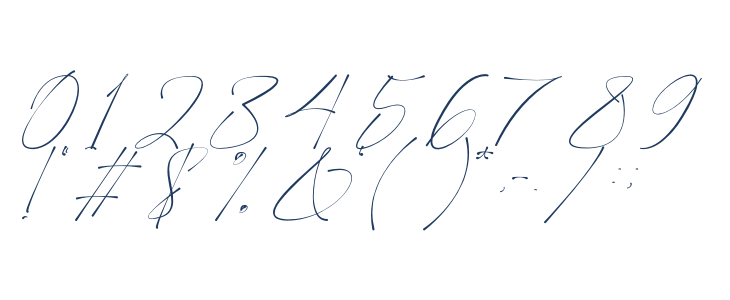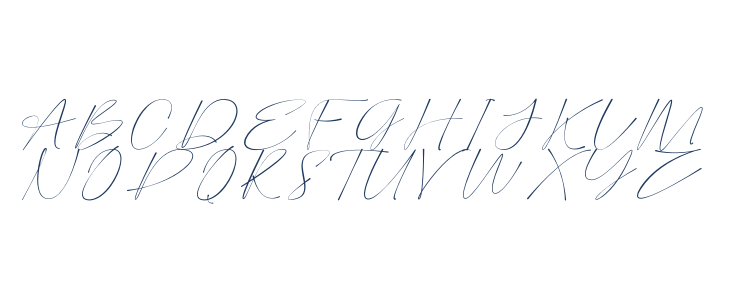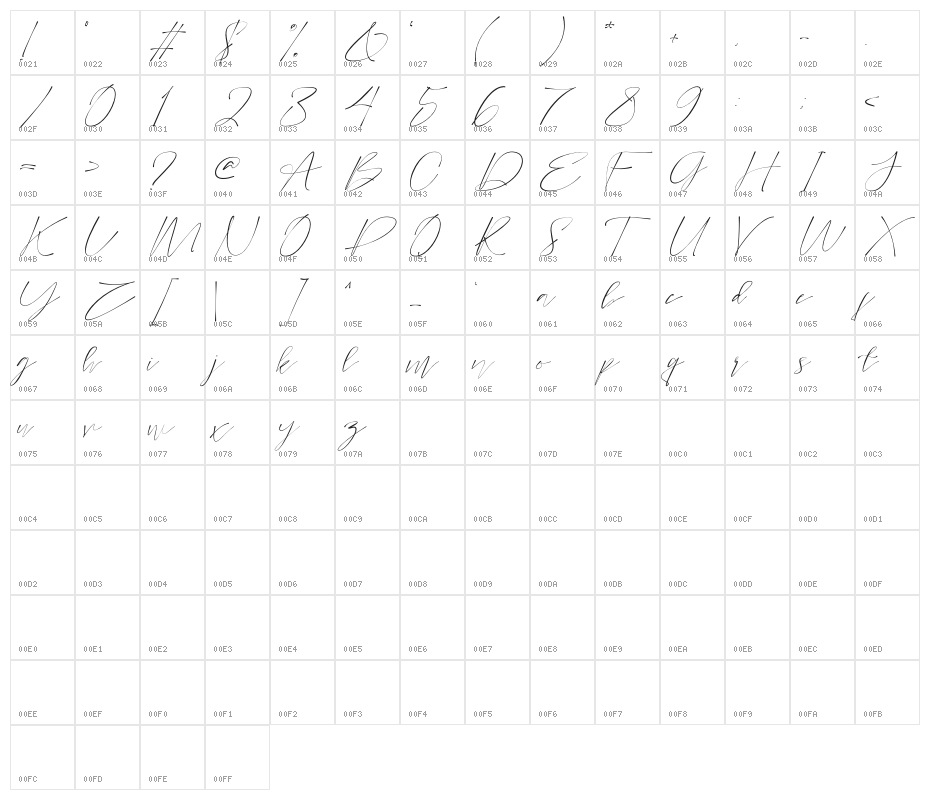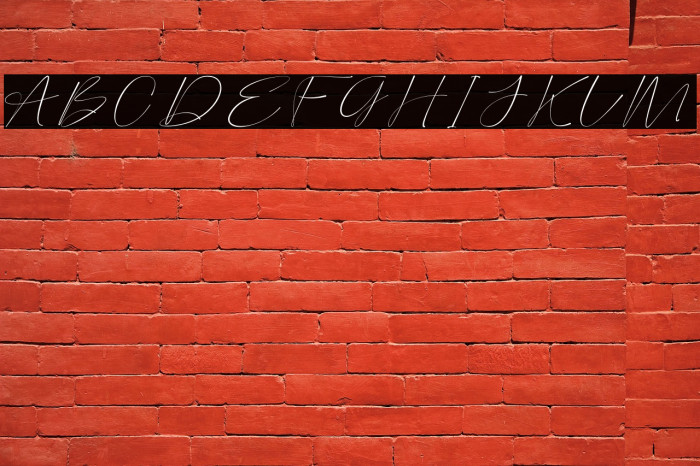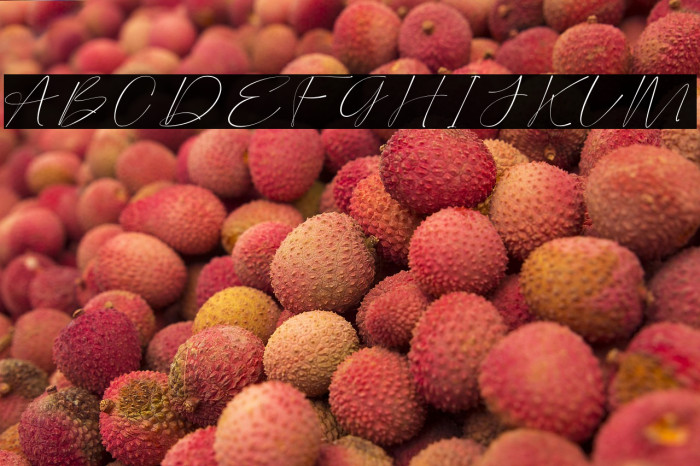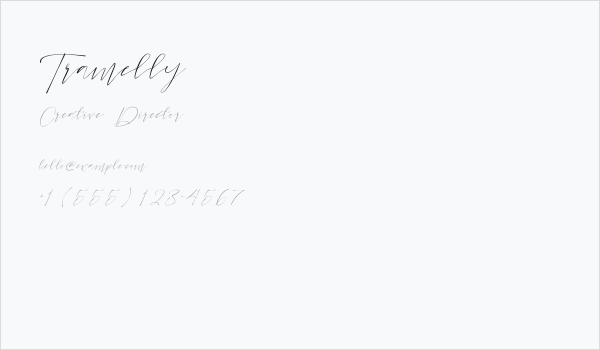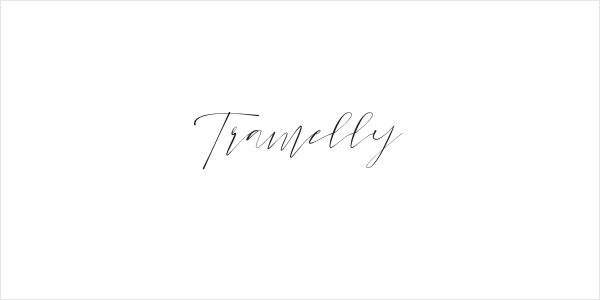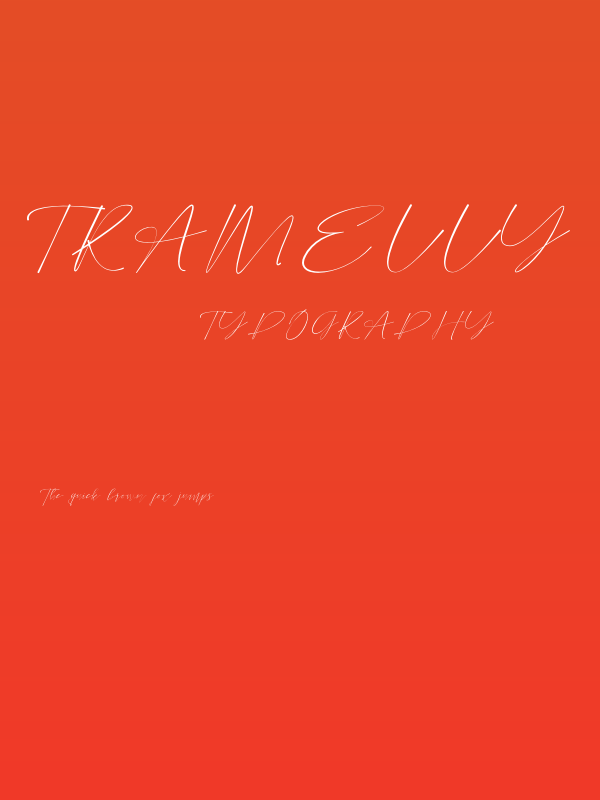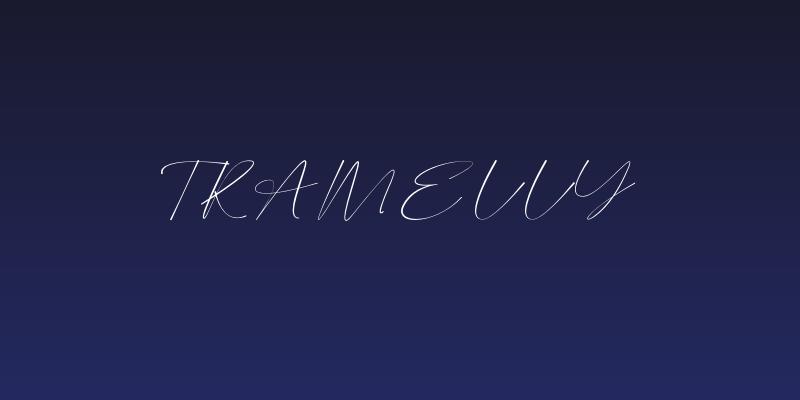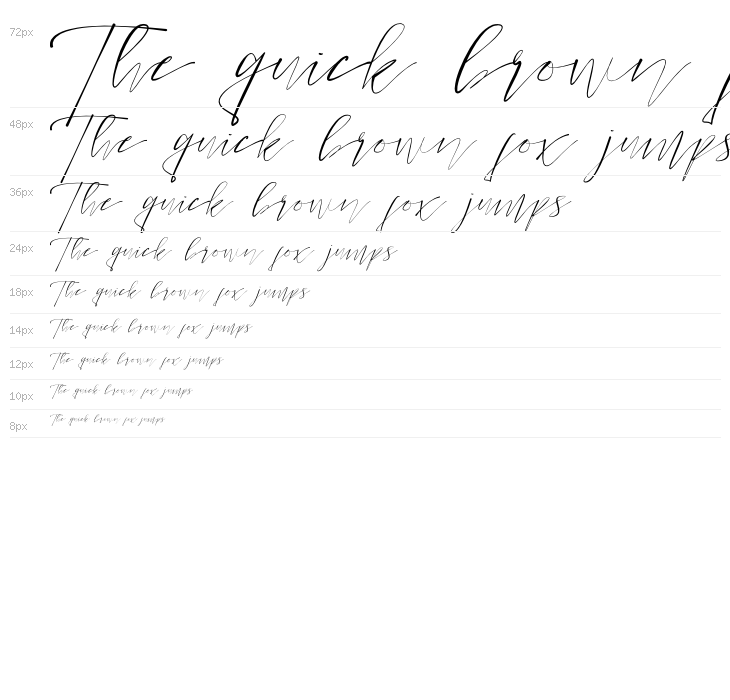
Tramelly Font
Tramelly Description
A delicate, flowing script font with a handwritten, calligraphic style. The strokes are thin and elegant, with varying thickness and a natural, organic rhythm. The uppercase and lowercase letters are highly cursive, featuring long ascenders and descenders, and the numerals and symbols match the fluid, airy feel.
| Overall Style | Decorative, Handwritten, Elegant |
| Use Case | Logos, Invitations, Decorative headings |
| Proposed Projects | Wedding invitations, personal branding, greeting cards, elegant event posters, signature logos. |